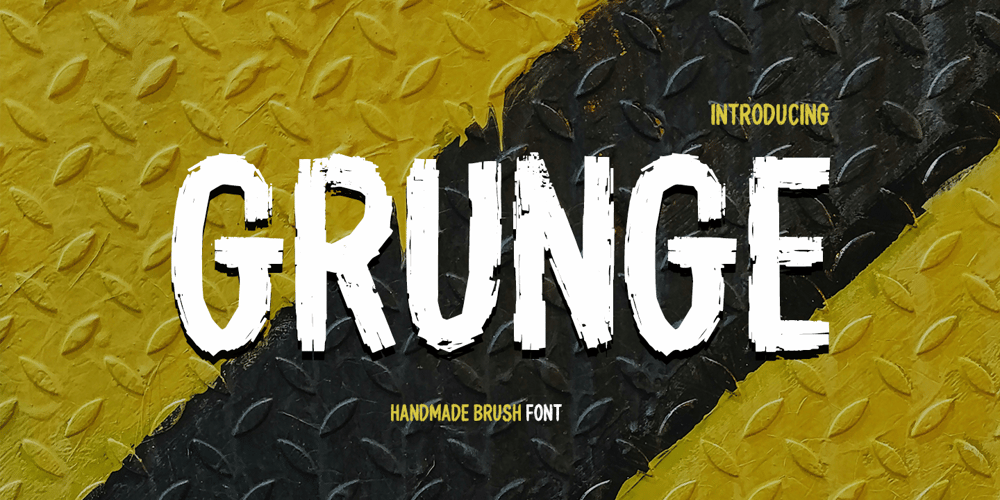
Grunge
Grunge font
Grunge Font Family was designed by Muhammad Zaini and published by Cocodesign. Grunge contains 1 styles and family package options. Introducing Grunge, an ingeniously crafted handmade brush font. Its design process honors authenticity, preserving the intriguing texture derived from its natural origins.